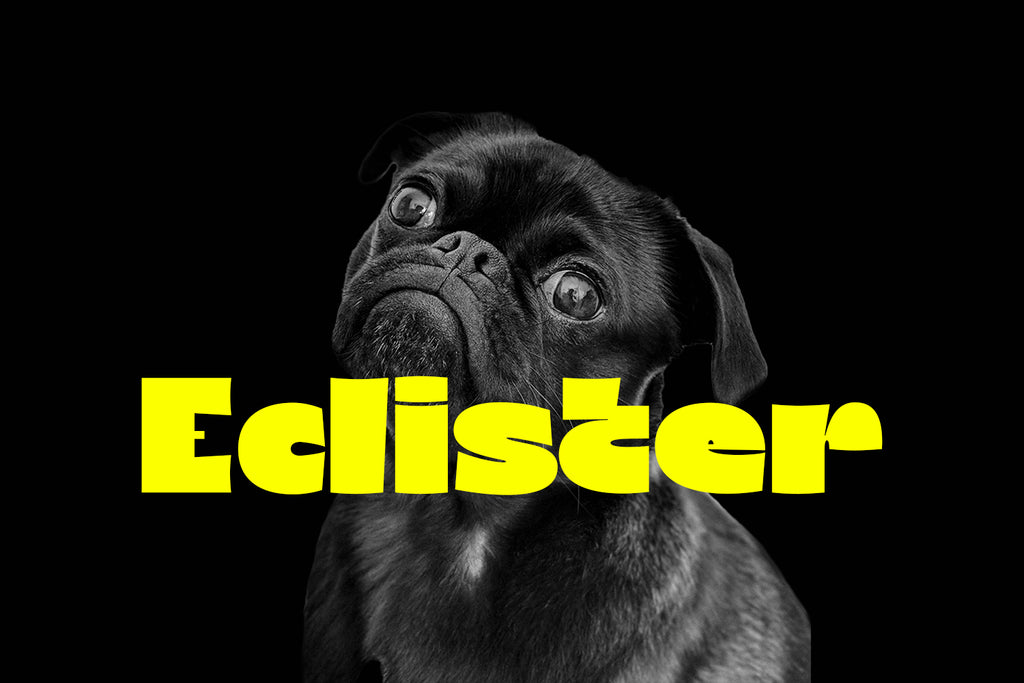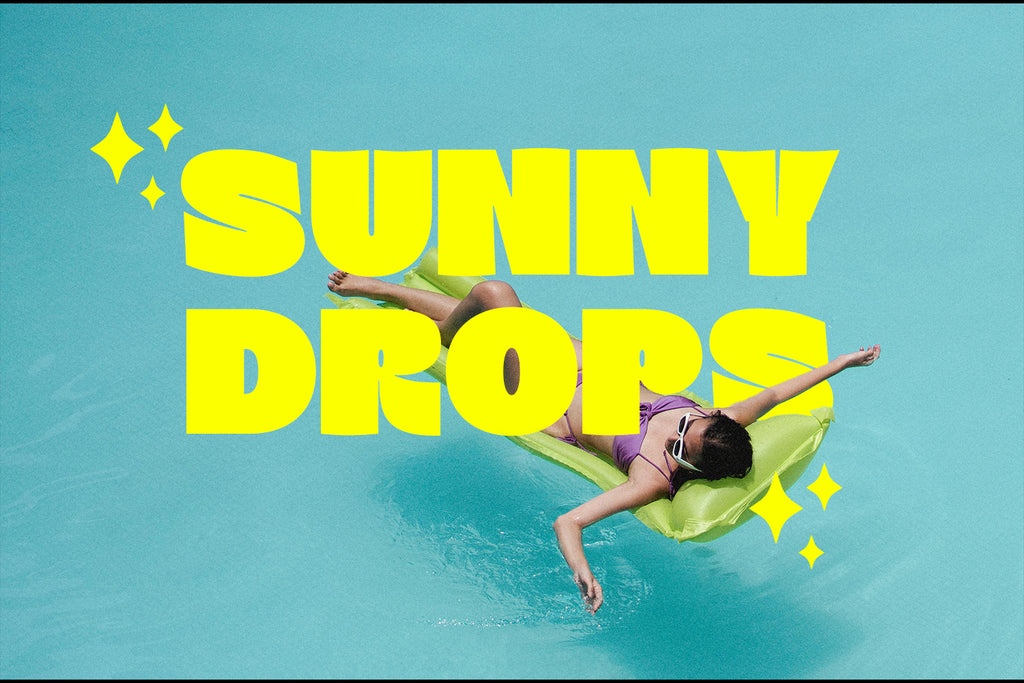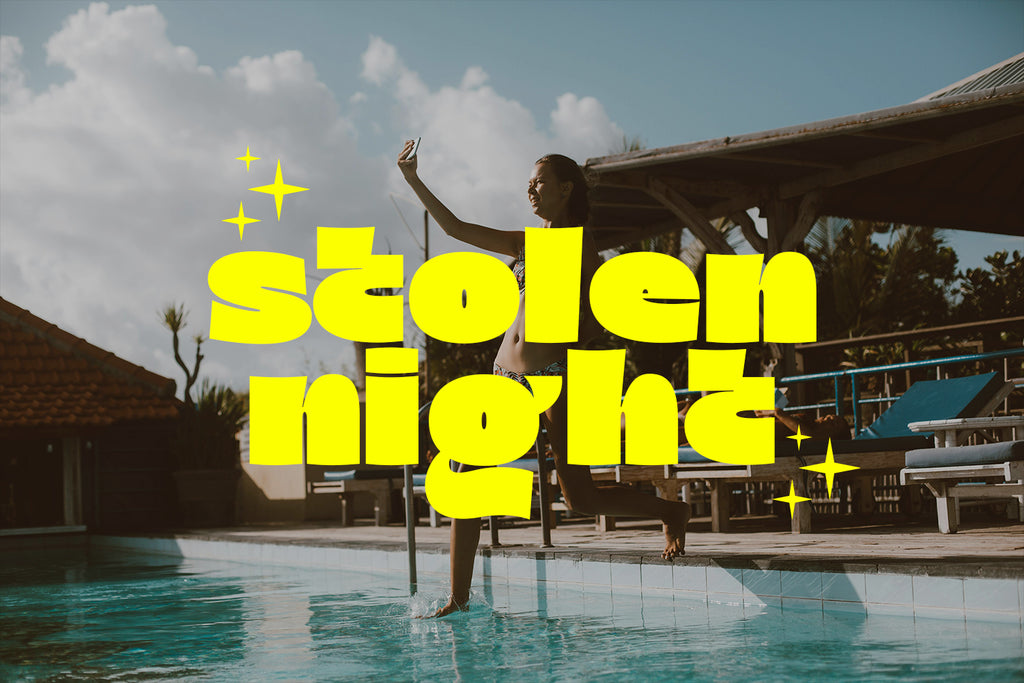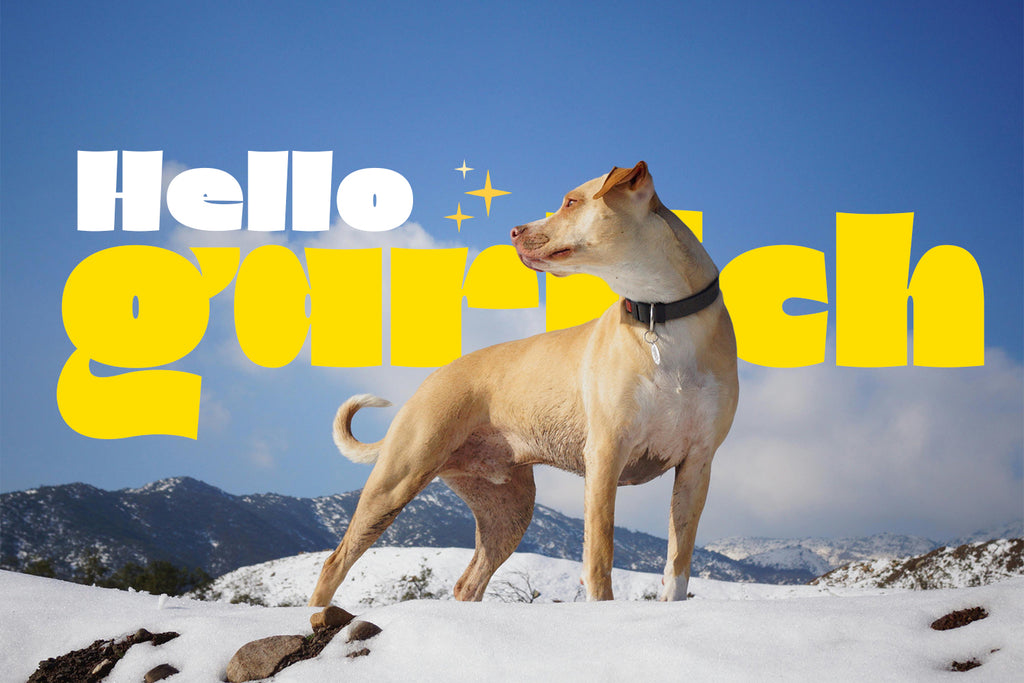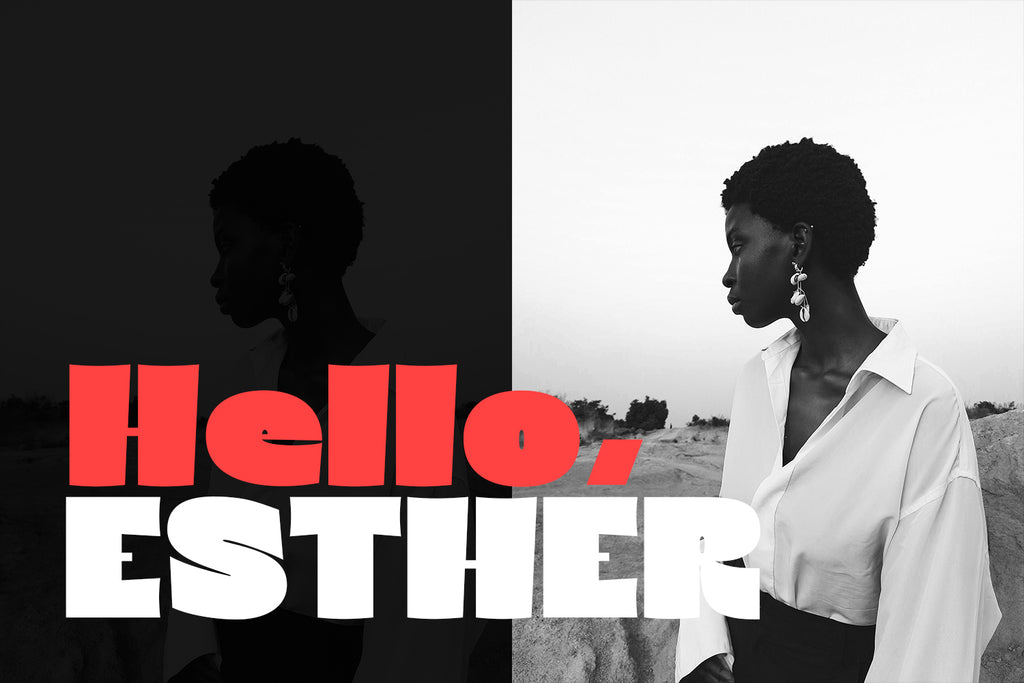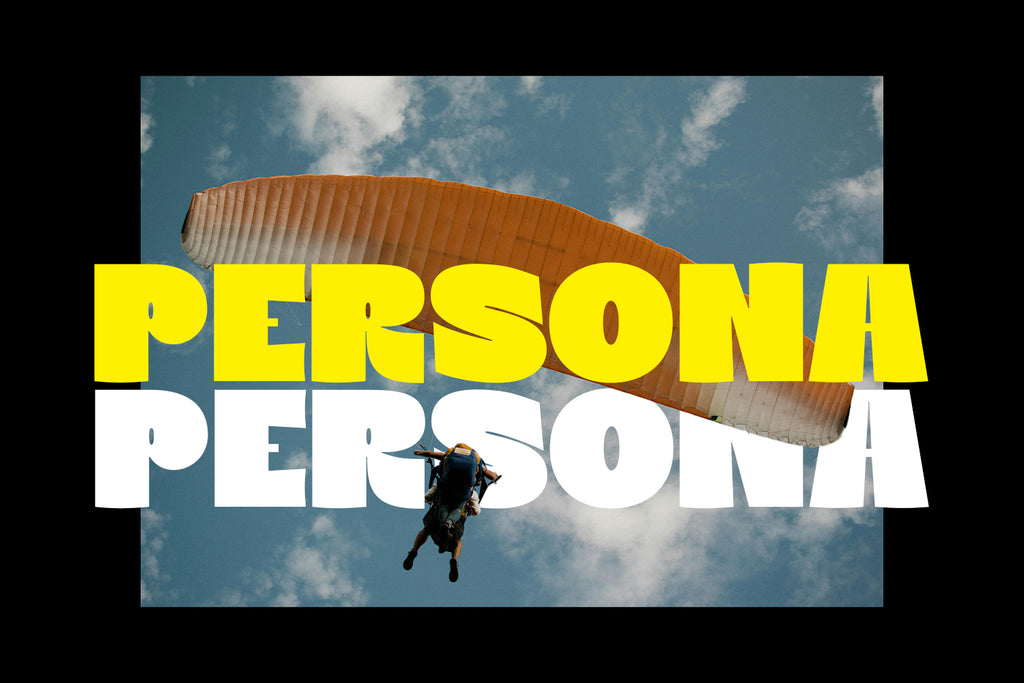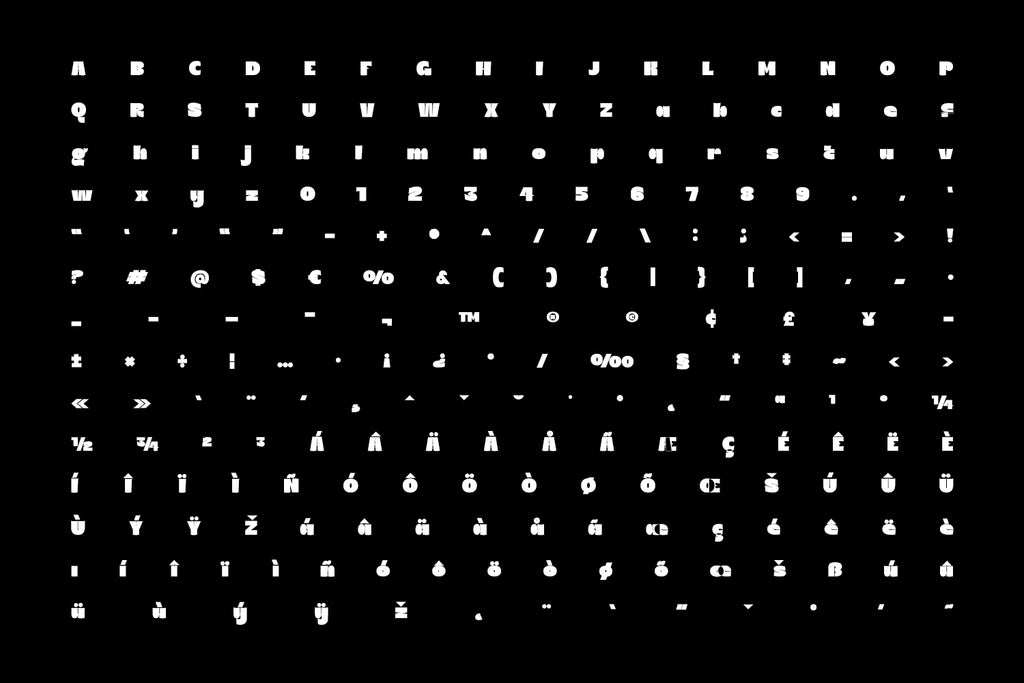
Eclister Display Typeface
Eclister is a bold display font designed to adapt to a variety of themes, making it a go-to choice for any creative project. Whether you're working on horror, Christmas, food, Halloween, or comic designs, Eclister delivers a striking and dynamic style that makes your work stand out.
•⁠ ⁠Horror & Halloween: With its sharp, dramatic strokes, Eclister adds a chilling effect to horror and Halloween projects. Perfect for eerie movie posters, haunted house flyers, and spooky invitations, this font creates an intense, unsettling atmosphere that’s ideal for frightening designs.
•⁠ ⁠Christmas & Festive: On the softer side, Eclister transforms into a joyful, festive typeface. Its rounded edges and playful form make it perfect for Christmas cards, holiday promotions, and festive branding, adding warmth and cheer to your seasonal projects.
•⁠ ⁠Food & Restaurant Branding: Whether you're designing menus, packaging, or branding for a food-related business, Eclister offers bold visibility. Its clean, strong lines are perfect for drawing attention to key menu items or promotional materials in the food industry.
•⁠ ⁠Comic & Creative: For comic book and creative projects, Eclister shines with its exaggerated style and fun, cartoonish vibe. Use it to bring your comic panels, speech bubbles, or graphic art to life with energy and character.
From creepy horror aesthetics to festive Christmas charm, Halloween fun, mouth-watering food menus, and quirky comic designs, Eclister is the versatile font that enhances any theme with bold personality. Make a lasting impact with Eclister the display font built for every occasion.